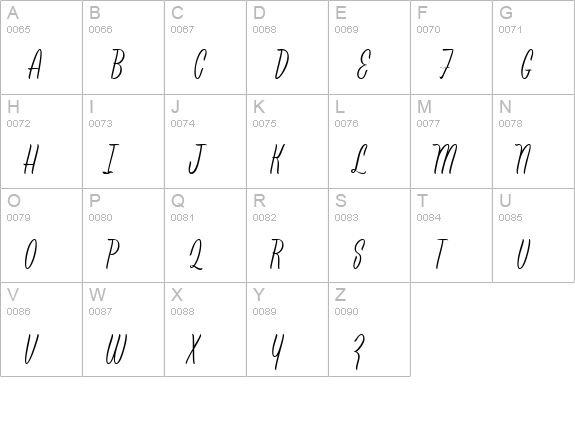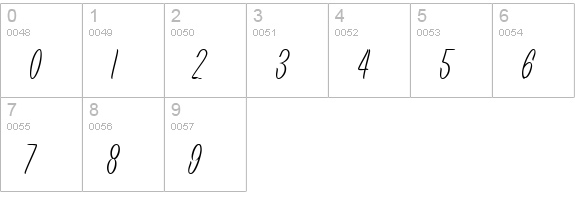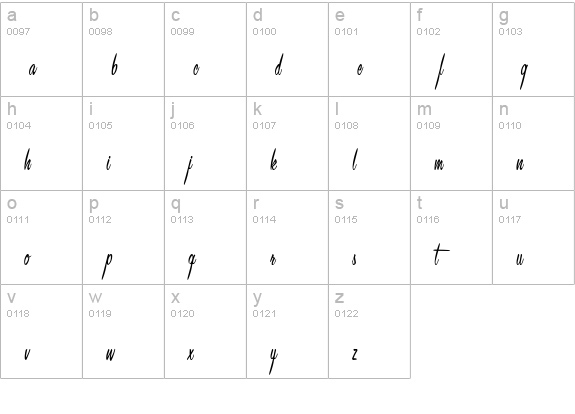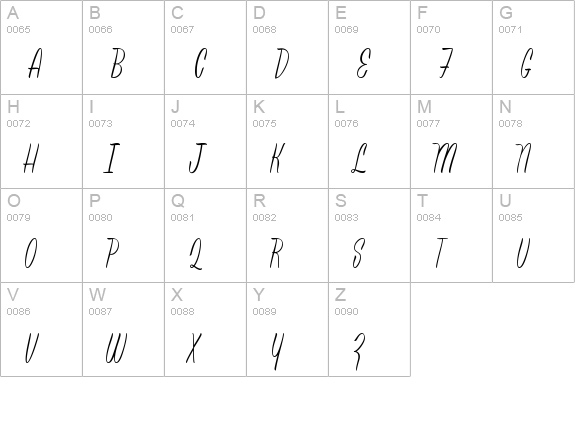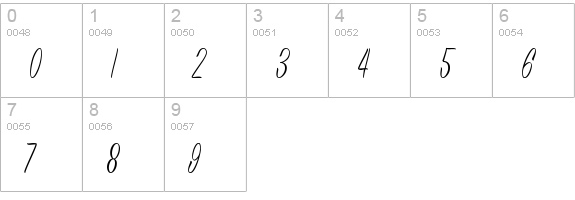
Leisure Script font is a beautifully crafted typeface that exudes elegance, sophistication, and a touch of whimsy. With its delicate curves, graceful letterforms, and charming swashes, this script font captures the essence of leisurely handwritten script. Whether you're designing invitations, creating branding materials, or adding a personal touch to your projects, Leisure Script is the perfect choice. One of the best things about Leisure Script font is that it is free! Yes, you read that right. This stunning typeface is freely available to download at FontsMarket.com. You don't have to worry about breaking the bank to add a touch of class and style to your designs. Simply visit FontsMarket.com, search for Leisure Script, and start using this font to elevate your creative endeavors. Leisure Script font offers a wide range of customization options, allowing you to experiment with various letter combinations, ligatures, and alternate characters. This versatility ensures that your designs will always stand out and make a lasting impression. Whether you're a professional designer or a creative enthusiast, Leisure Script font will surely become your go-to choice. Its timeless appeal and versatility make it suitable for a variety of projects, from wedding invitations and greeting cards to logos and branding materials. So why wait? Download Leisure Script font for free today at FontsMarket.com and let your creativity soar. With its stunning aesthetic and effortless charm, this font will add a touch of elegance and sophistication to any project. Don't miss out on this amazing opportunity to enhance your designs with a truly remarkable typeface.